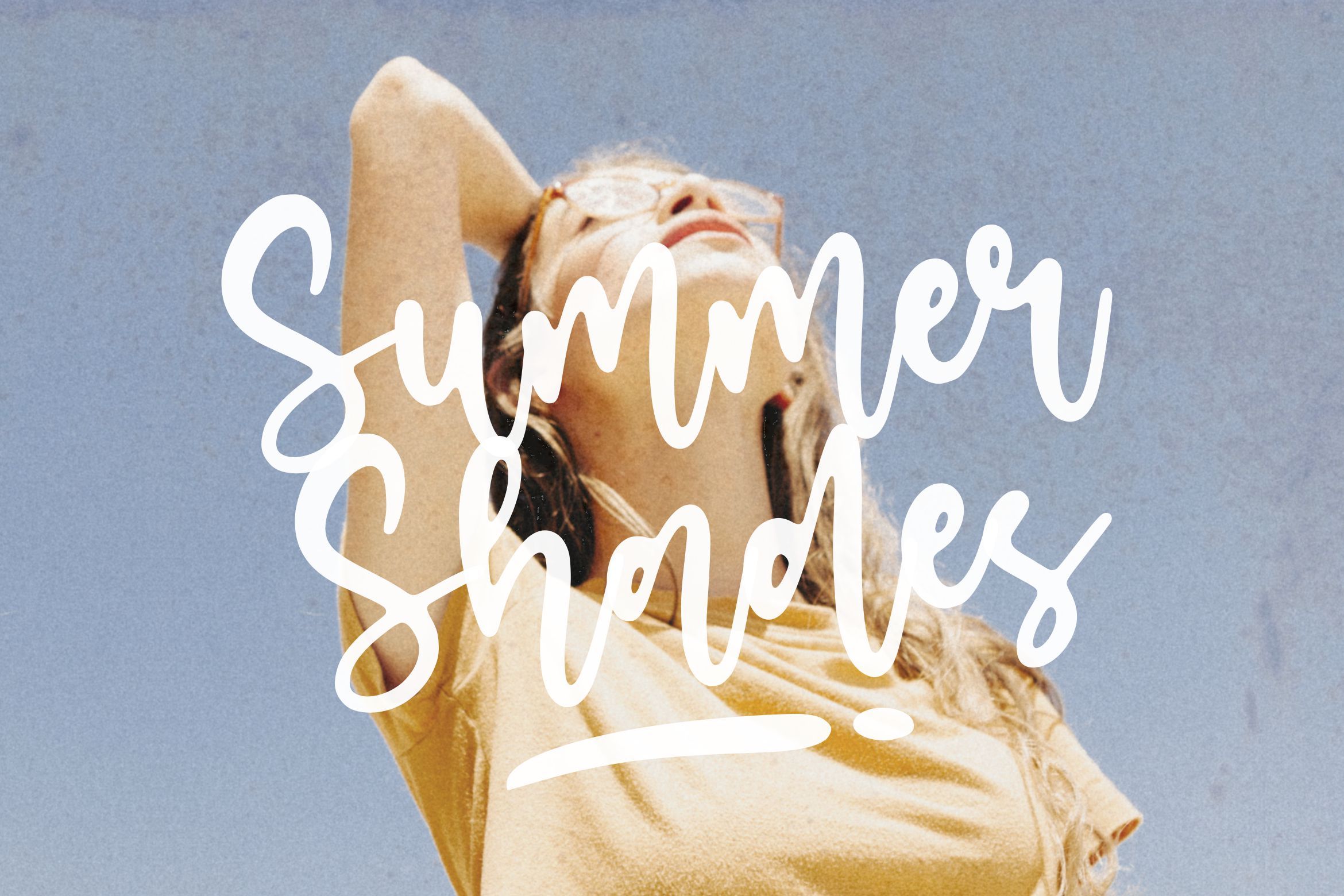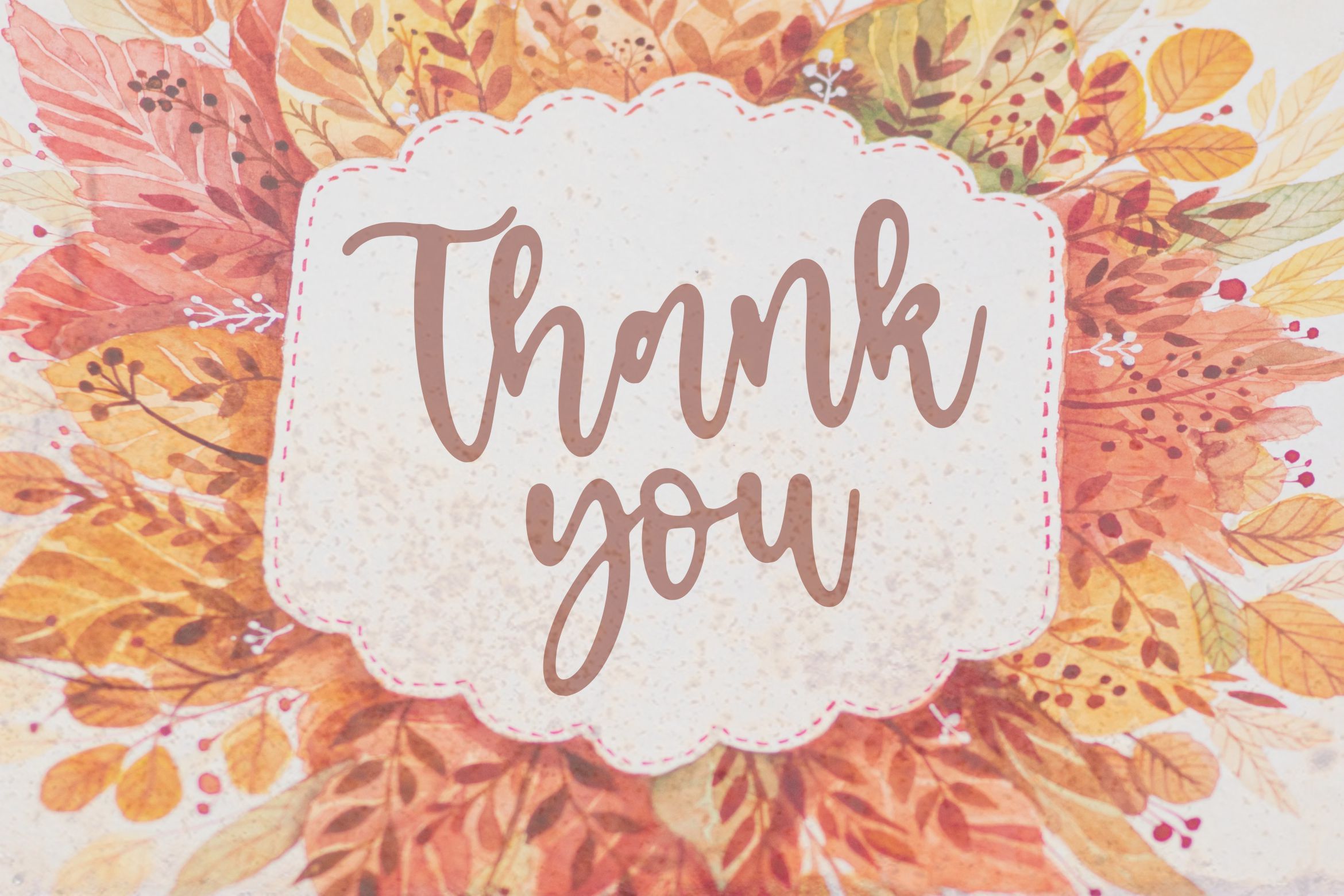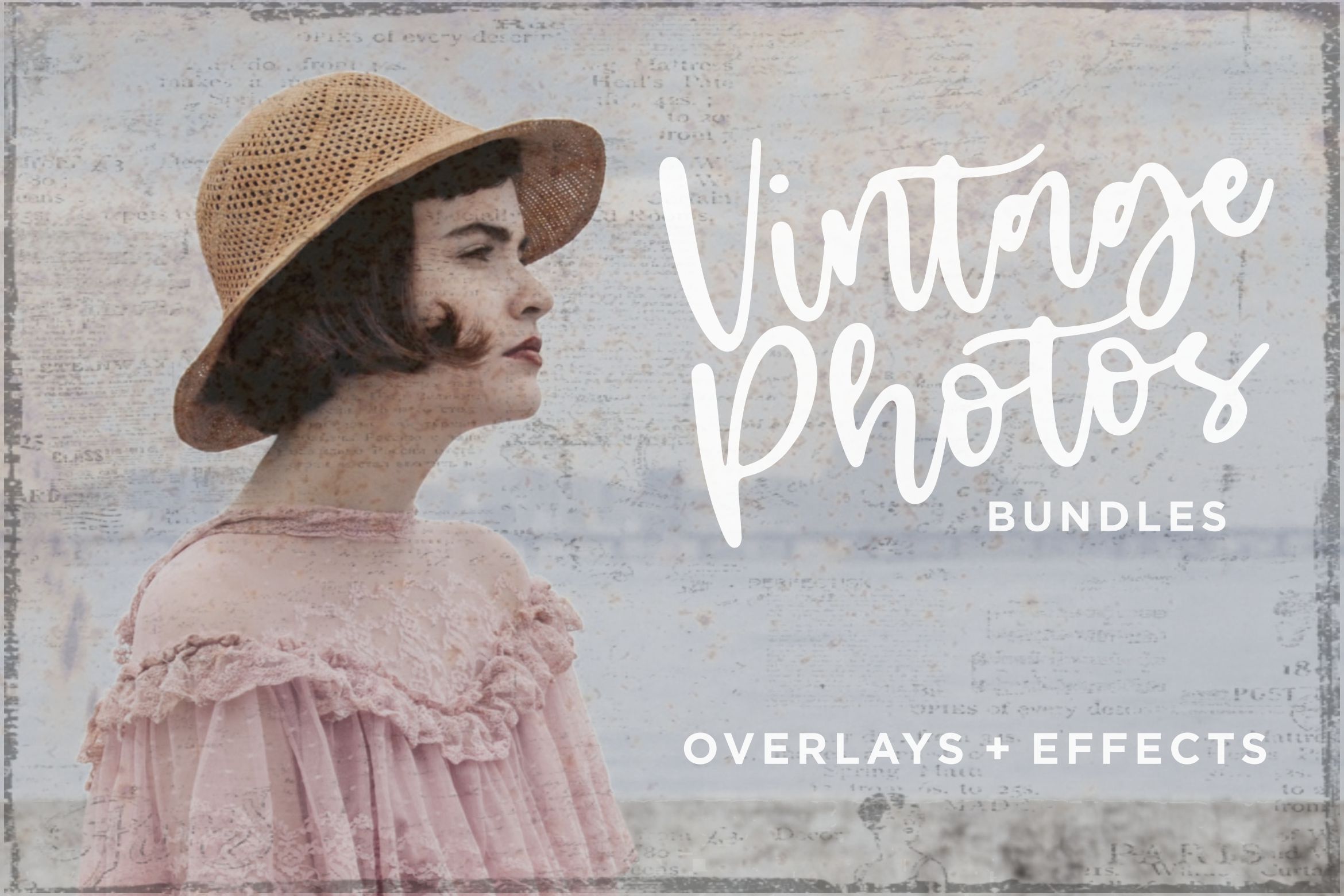
About Eclipse Cinema Beautiful Modern Handwritten Font
Introducing by Letterative Studio : Eclipse Cinema Font Eclipse Cinema is a Beautiful Modern Handwritten Font Eclipse Cinema is a fun and relaxed handwritten font. No matter the topic, this font will be an incredibly asset to your fonts’ library, as it has the potential to elevate any creation. This font includes : TTF and OTF Eclipse Cinema also multilingual support Enjoy the font! Feel free to comment or feedback Send me PM or email Thank you!